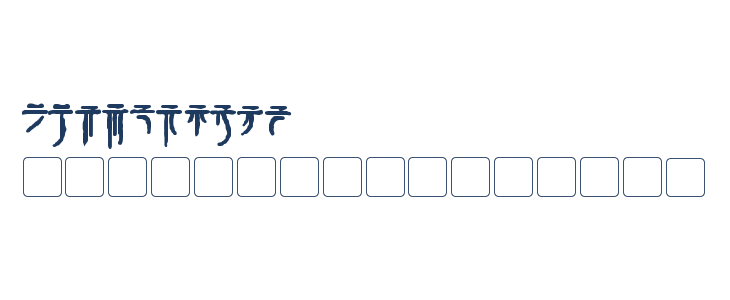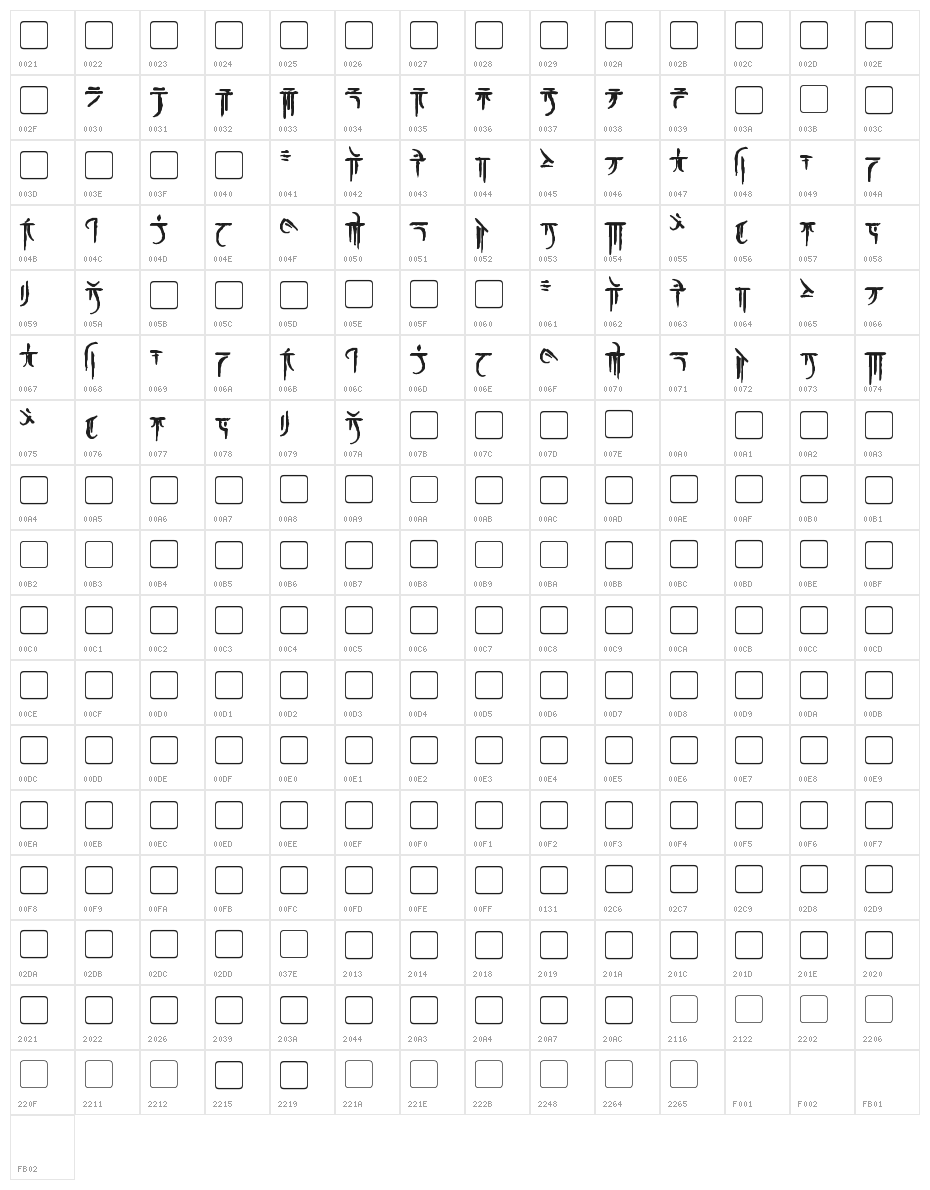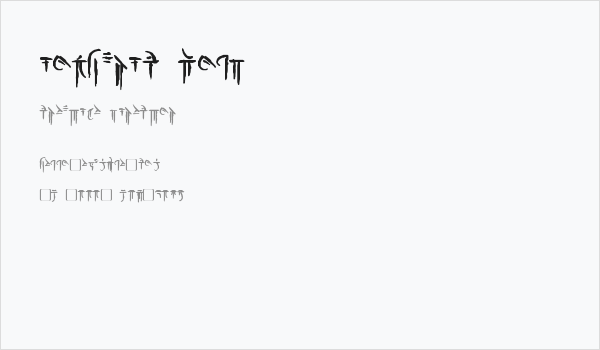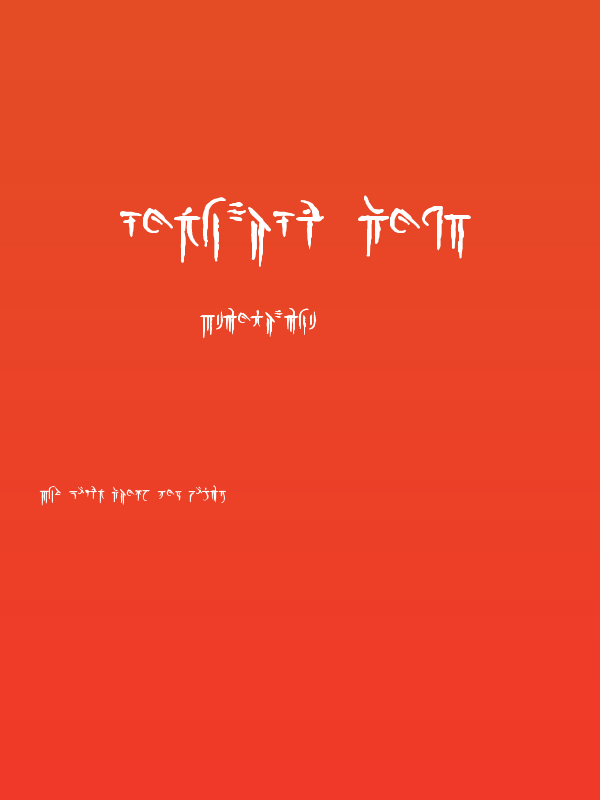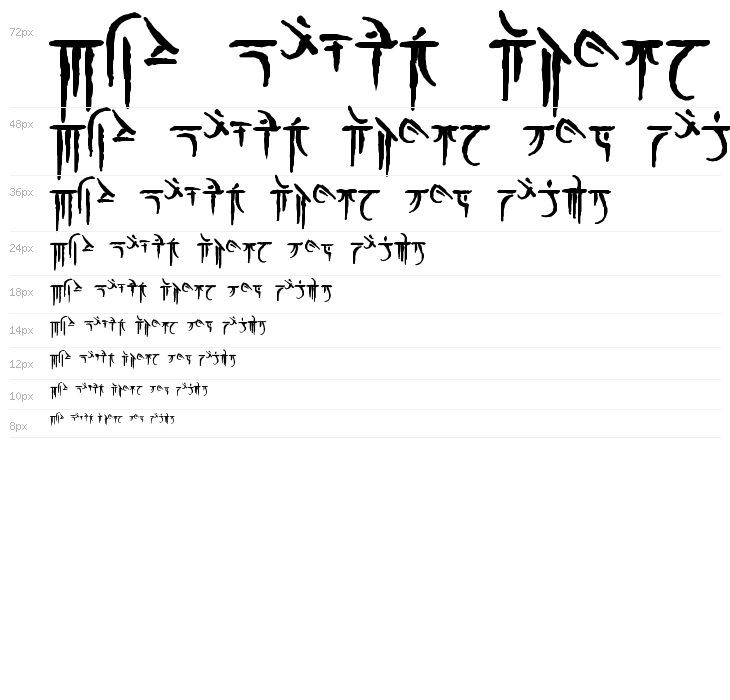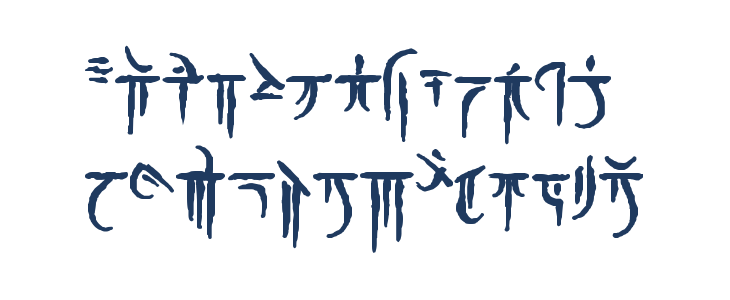
Iokharic Bold Font
Iokharic Bold Description
This font features a bold and striking design with a distinctly ancient and mystical appearance. The characters are crafted with sharp, angular lines and intricate details, evoking a sense of mystery and otherworldliness. The strokes are thick and bold, creating a strong visual impact. Each letter is unique, with a style that suggests an ancient script or runic alphabet. The overall appearance is both decorative and functional, making it suitable for projects that require a touch of fantasy or historical depth.
| Overall Style | Mystical, Ancient, Decorative |
| Use Case | Headlines, Logos, Themed Designs |
| Proposed Projects | Ideal for fantasy-themed projects, game design, book covers, or any creative work requiring an ancient or mystical aesthetic. |